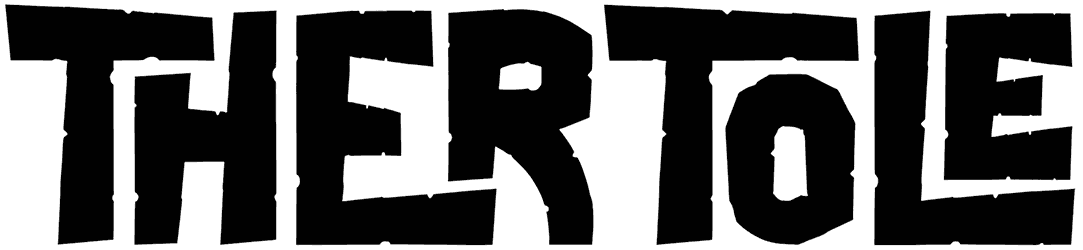
Thertole Font
Thertole is the best option if you need a genuine, hand-drawn cartoon font to pique the interest of your intended readers. While it lacks lowercase letters and numbers, the bold, distinct capital letters give the font a chance to add a more playful vibe to your creations.
Books, texts, headings, and artwork all benefit from this masterwork. Download this stone font if you’re up for a challenge and want to make a good impression on your client.